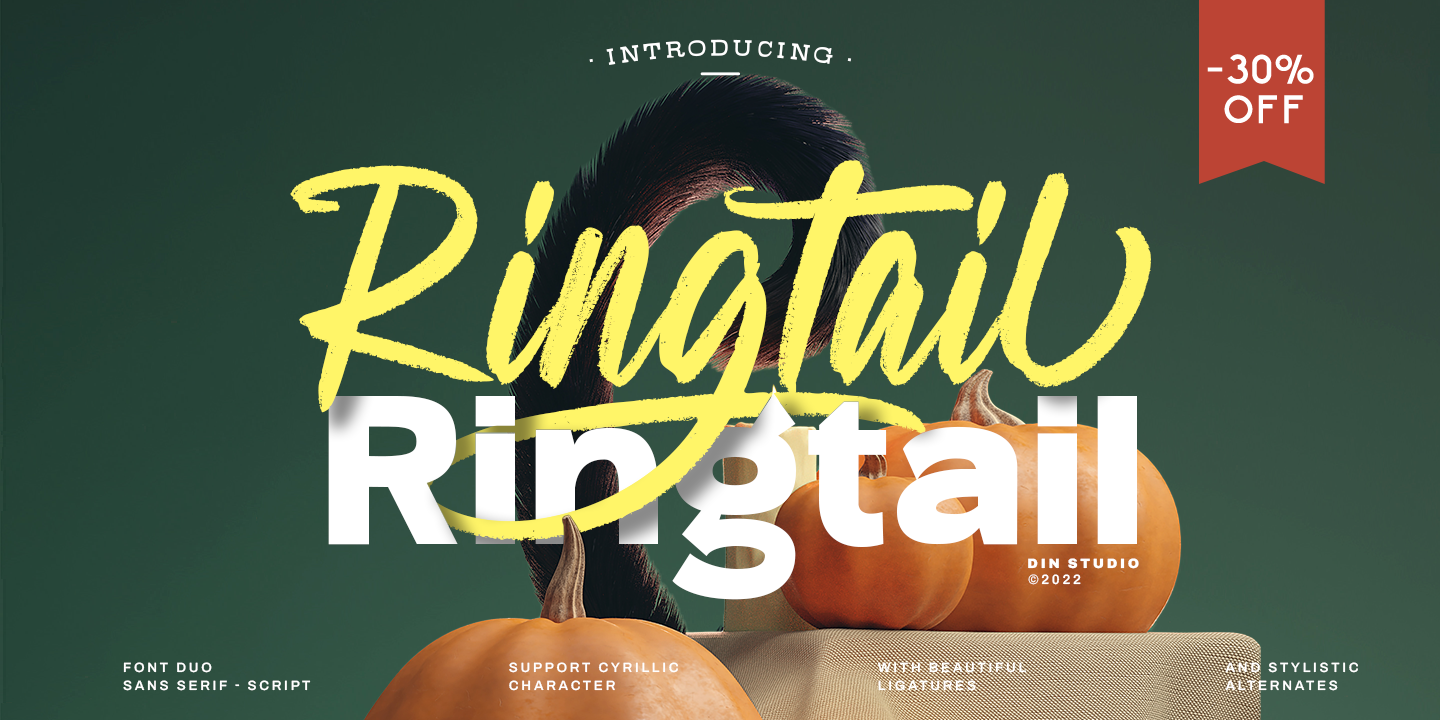
Ringtail Font Free Download is an elegant and natural script typeface that draws inspiration from the fluidity of wildlife and organic shapes. Ideal for eco-friendly branding, invitations, packaging, lifestyle blogs, and any project that embraces nature and authenticity.
What makes Ringtail Font so exciting is its smooth, flowing strokes combined with a hand-lettered feel, giving your designs a warm and personal touch. It effortlessly blends sophistication with approachability.
The Ringtail Font family includes Regular and Italic styles, allowing for expressive and versatile typography.
Whether you’re designing sustainable product labels, nature-themed event materials, or stylish social media content, Ringtail Font Free Download adds a natural elegance and charm. You can test it for free, but commercial use requires a license. Let Ringtail breathe life into your creative projects.